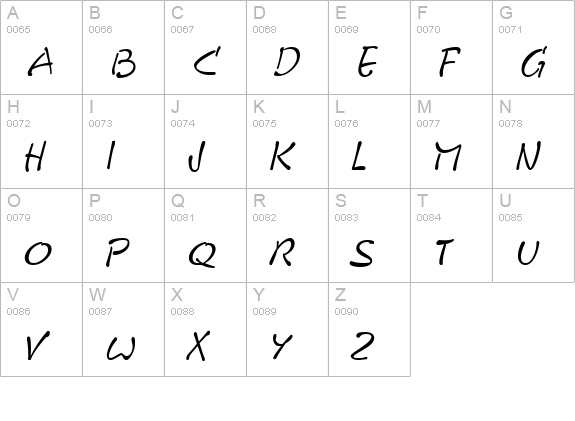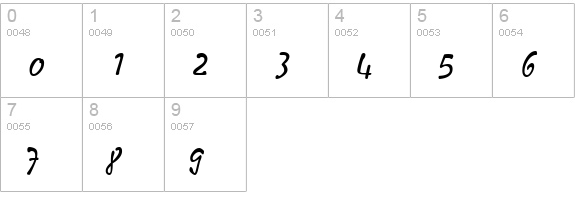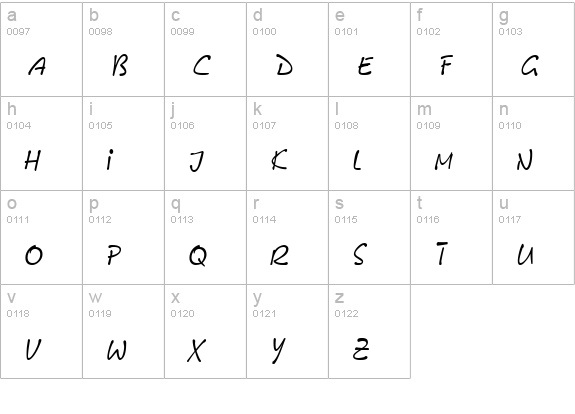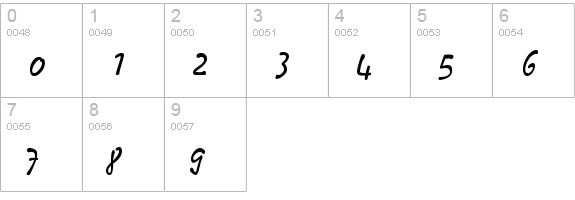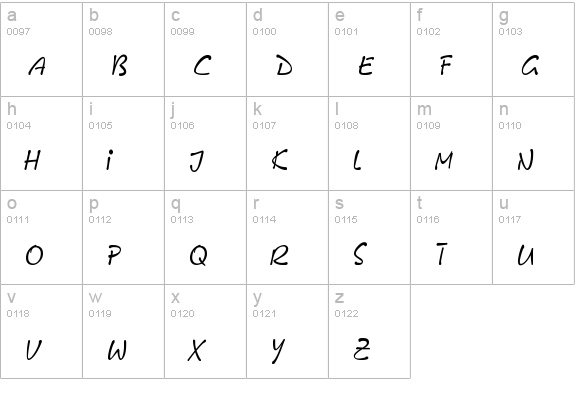
Pyxid Regular is the standard, neutral variant in the Pyxid typeface family \xE2\x80\x94 well suited to general body text, paragraphs, and standard typographic work.
Pyxid Regular font is a stylish and versatile typeface designed to bring a touch of elegance to your projects. With its clean lines and modern aesthetic, Pyxid Regular is the perfect choice for a wide range of design applications, from branding to editorial design. This font features a sleek and sophisticated look that will make your text stand out with a touch of sophistication. What makes Pyxid Regular even more appealing is that it is available for free download at FontsMarket.com. This means you can easily access this high-quality font without any cost, making it a fantastic resource for designers and creatives looking to elevate their work without breaking the bank. Don't miss out on the opportunity to add Pyxid Regular to your font collection today!